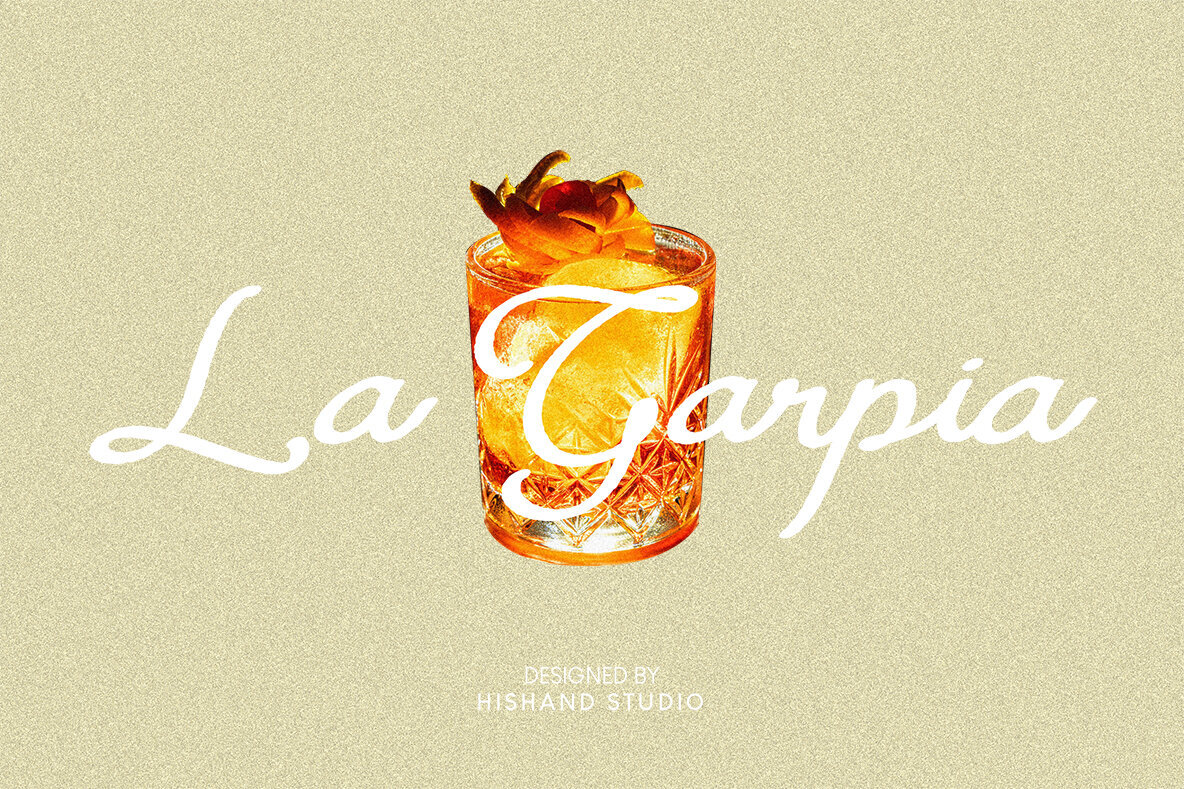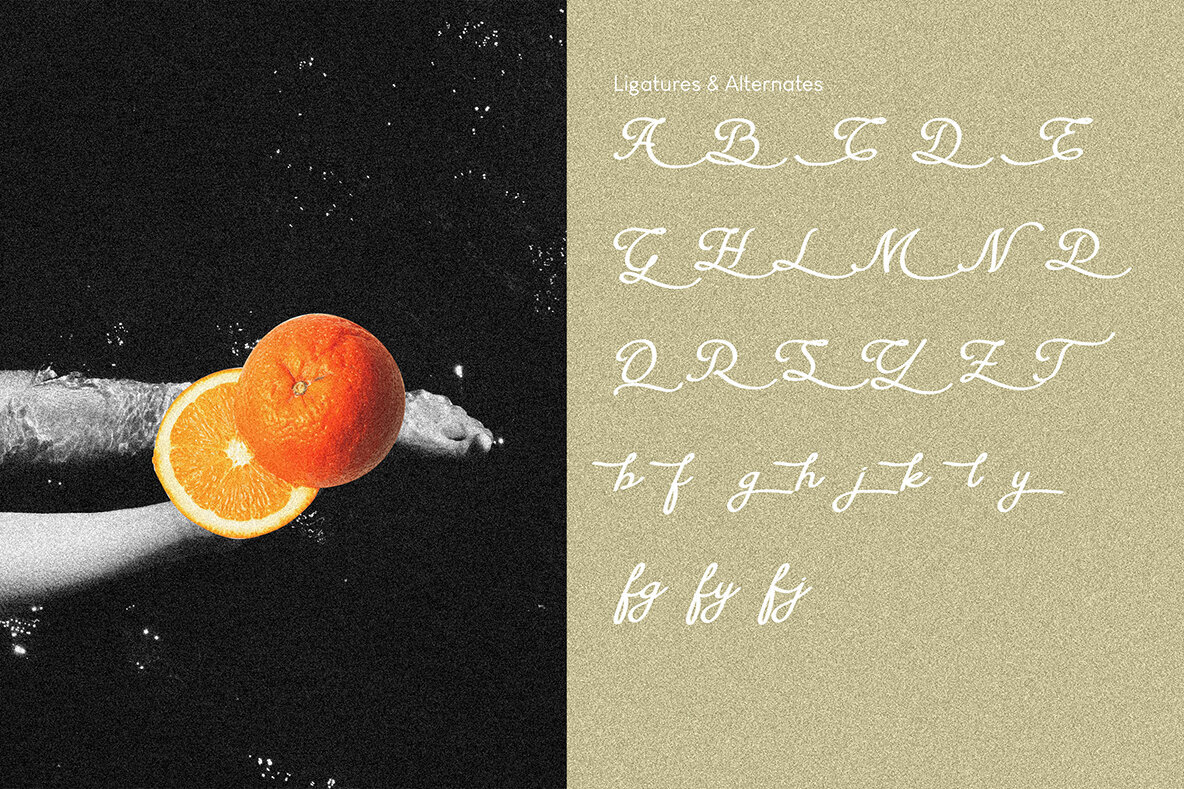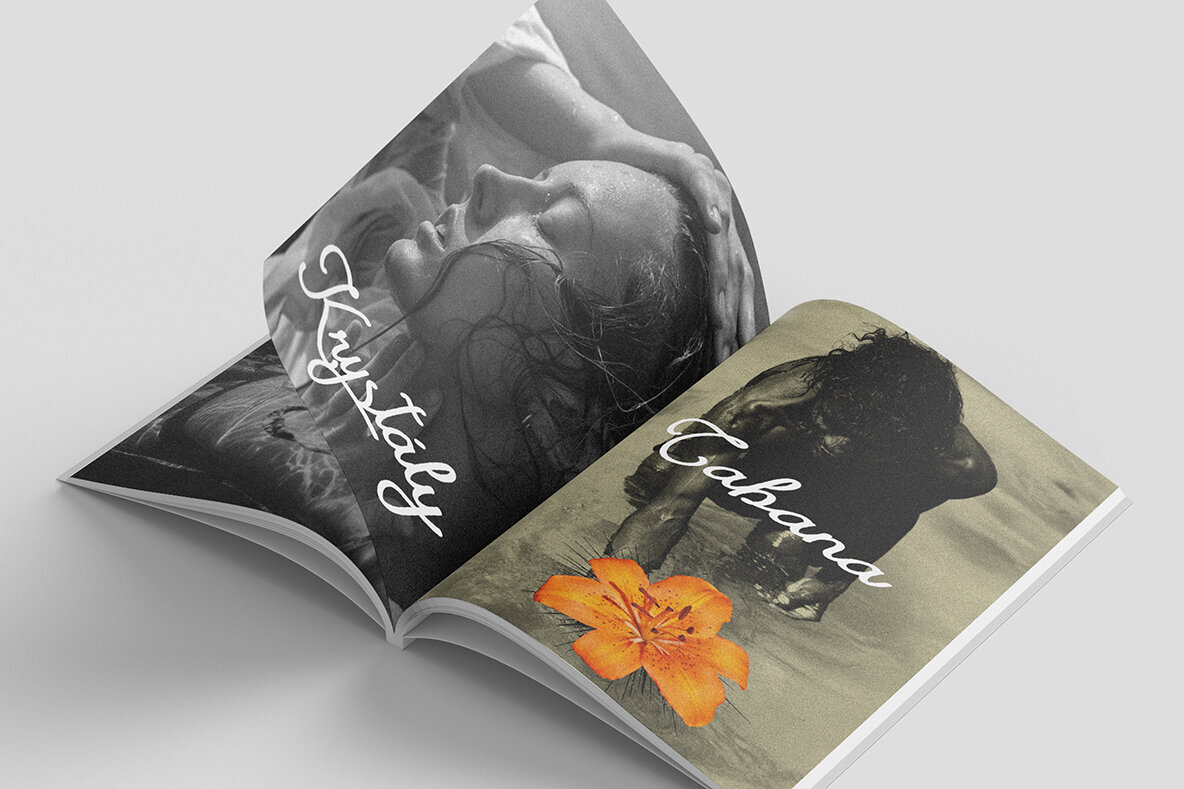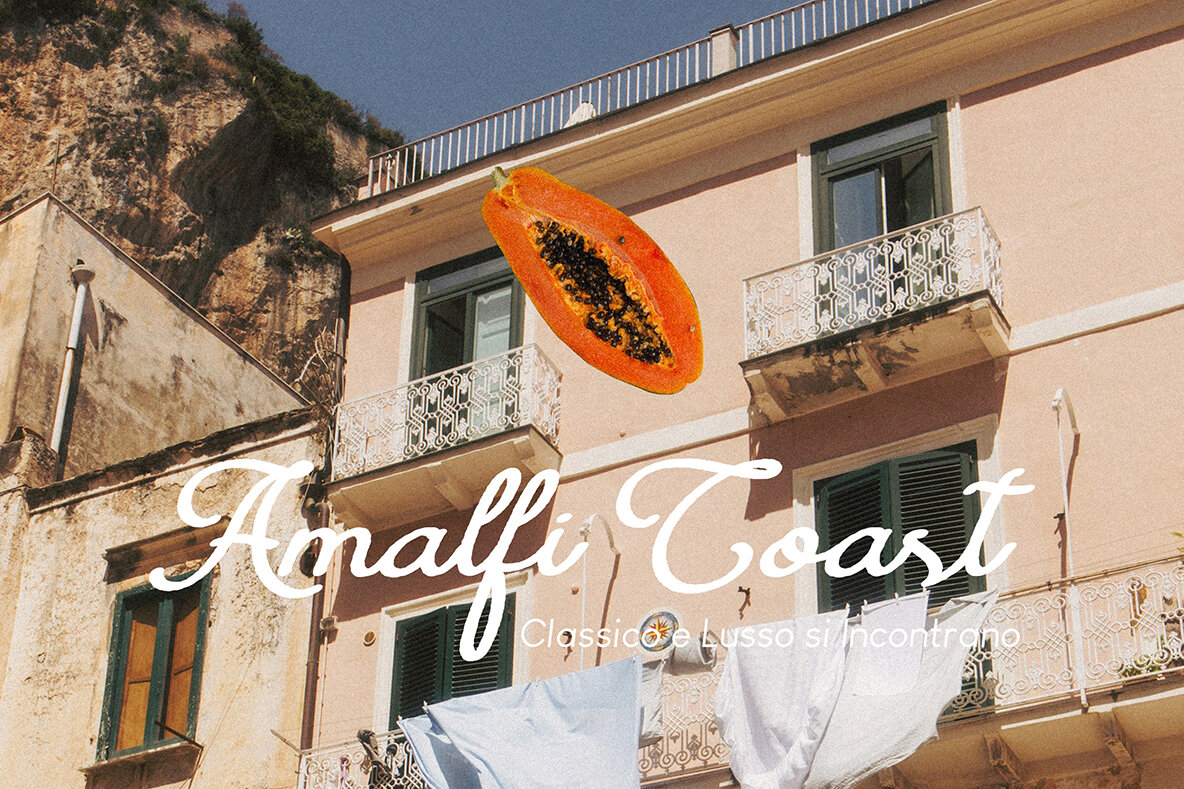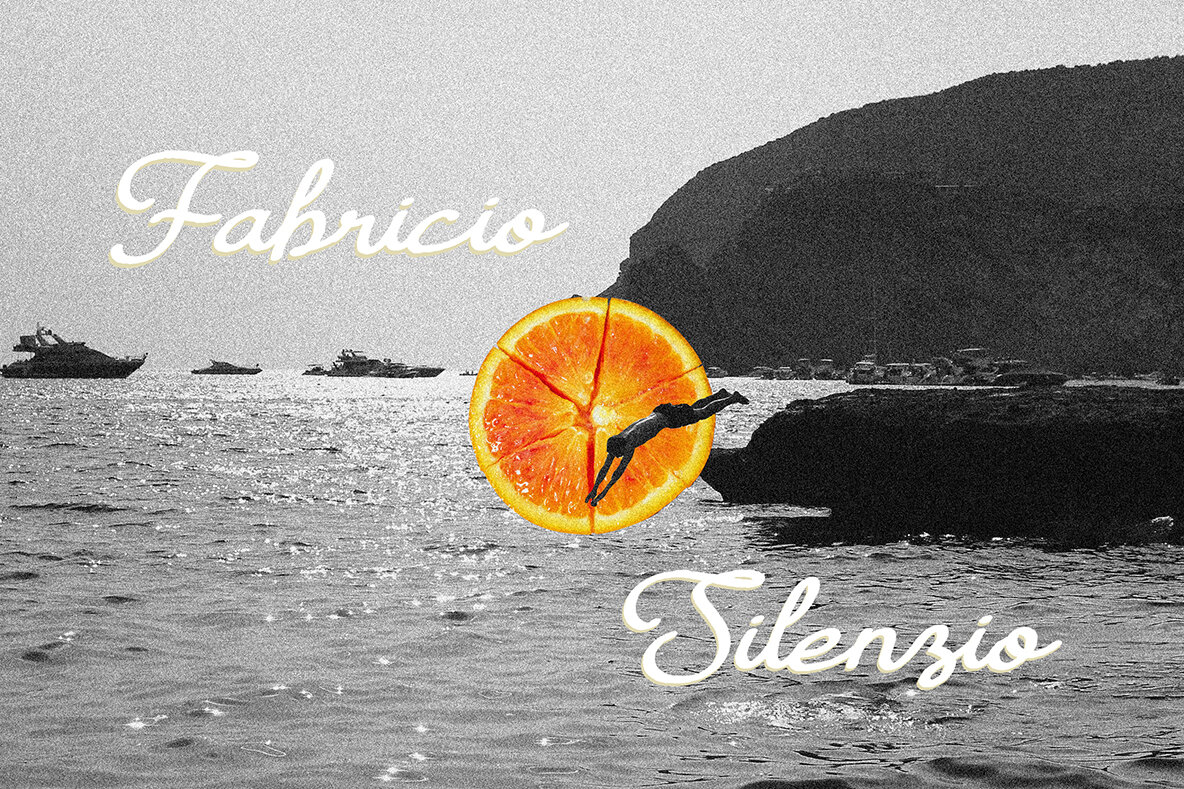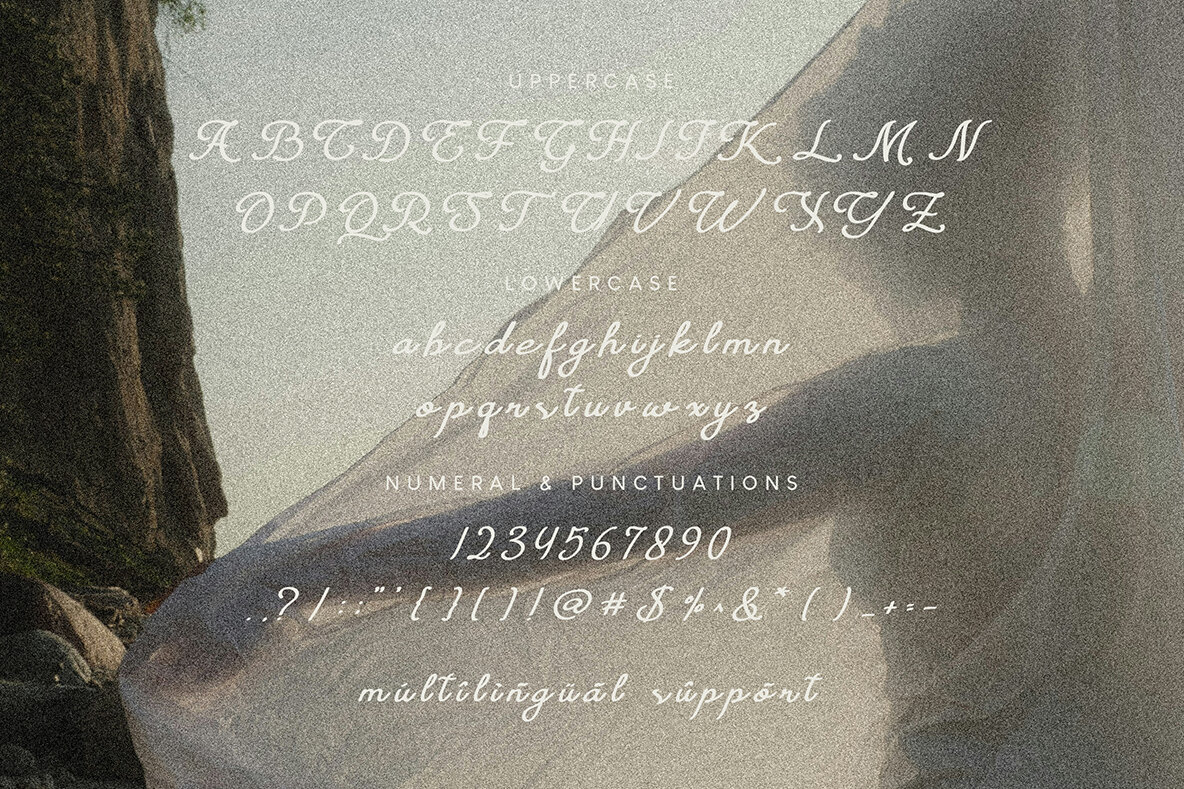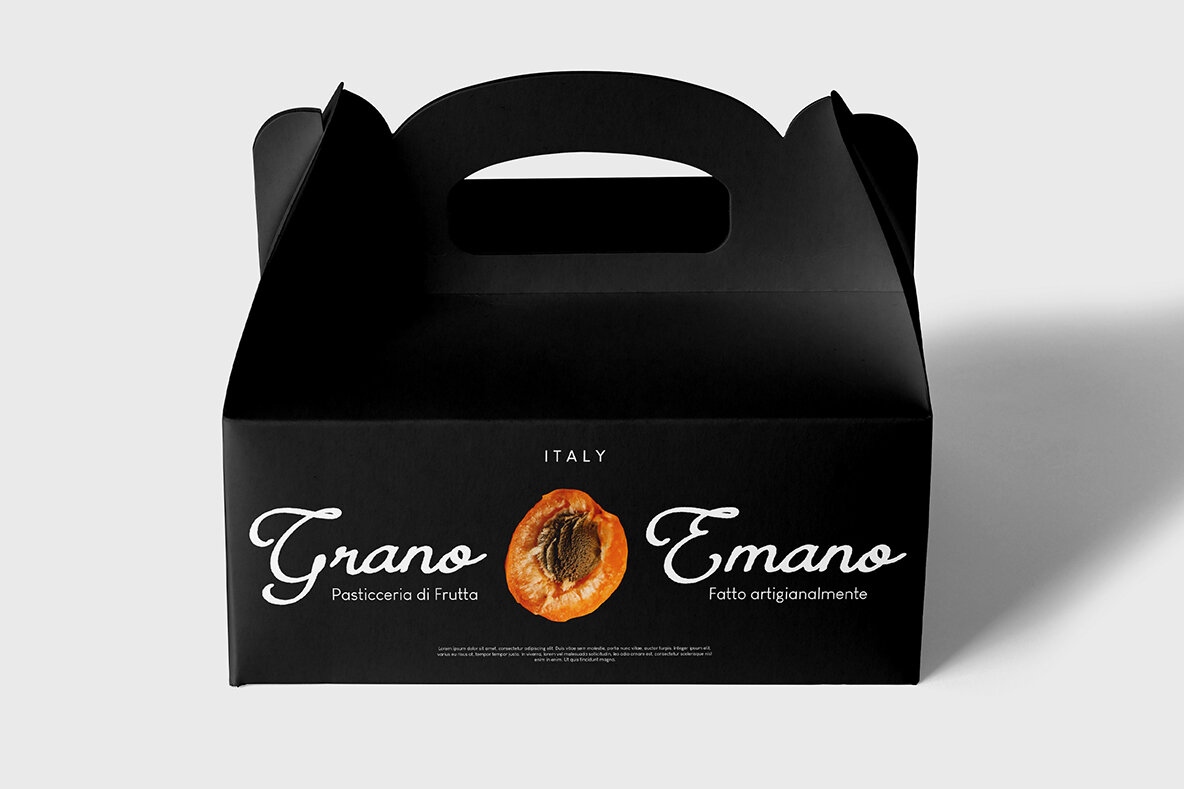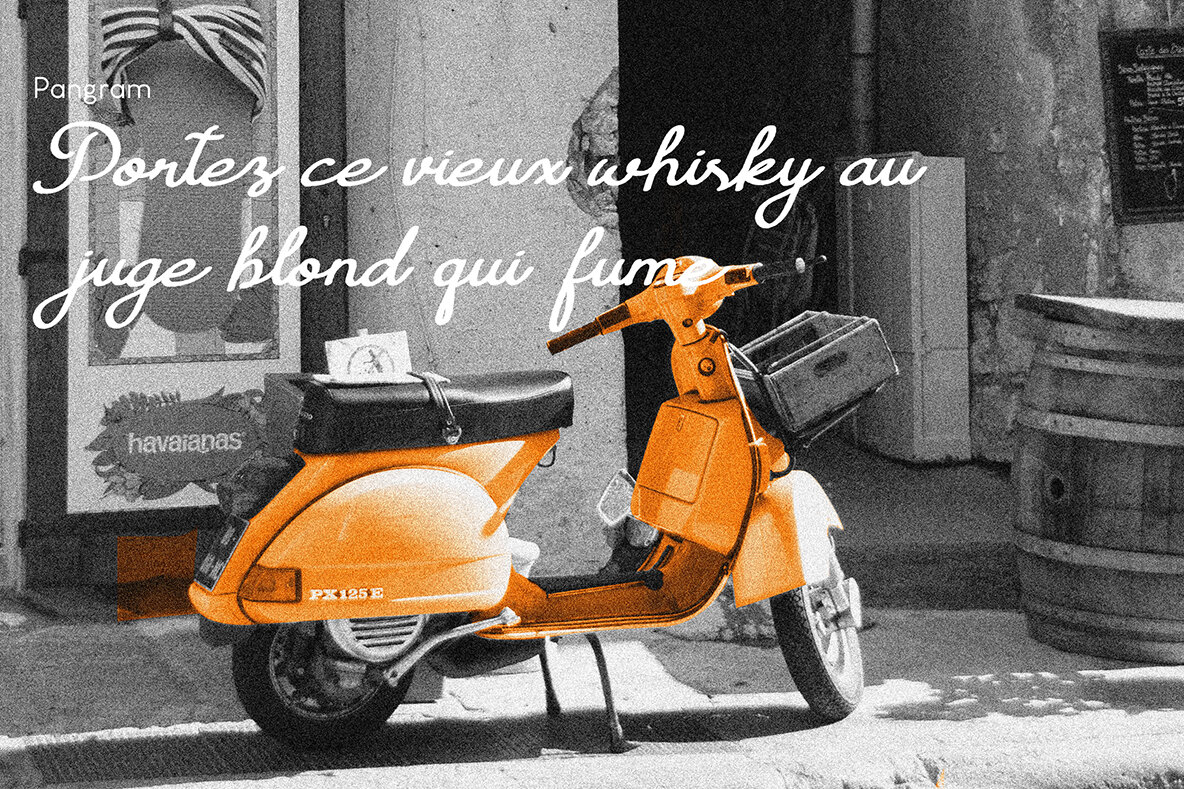
La Garpia
Embrace the art of handwriting with La Garpia, a font that elegantly blends smooth curves and gentle strokes into every design project. Its delicate flow achieves an elegant yet casual aesthetic, making it suitable for both modern and classic themes. Each character is meticulously crafted to mirror the rhythm of real handwriting, lending your text a natural and authentic feel. The balanced structure of La Garpia adds a refined handwritten touch, maintaining readability and simplicity. Perfectly suited for branding, stationery, logos, packaging, and social media visuals, it offers a seamless integration of style and legibility. Features:La Garpia: Elegant Handwritten Script Font